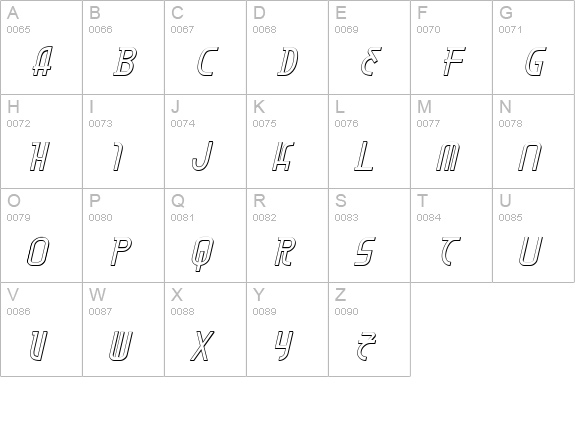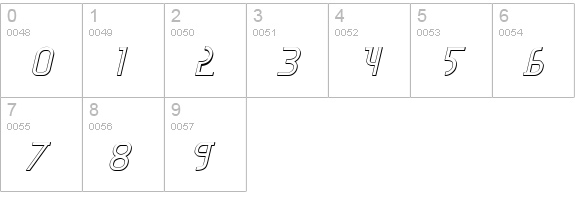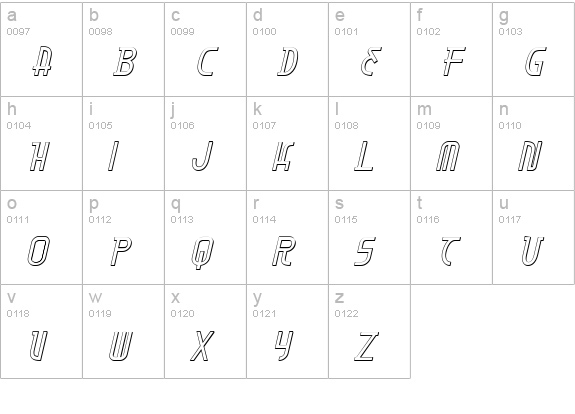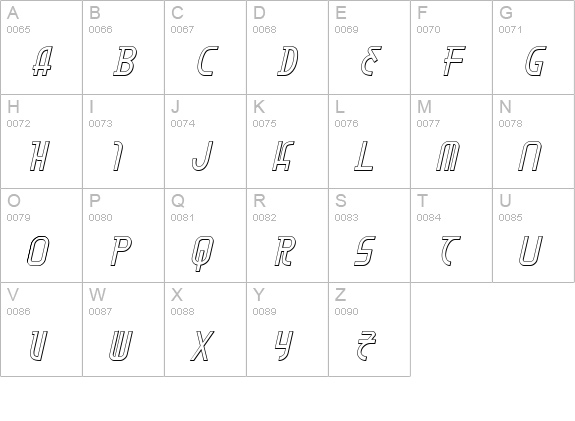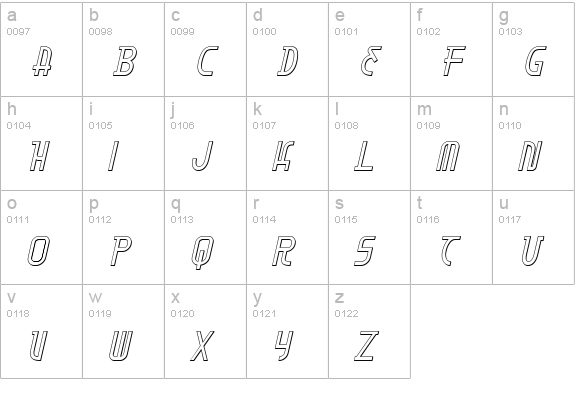
Moon Dart 3D Italic Font Details
Moon Dart 3D Italic is a distinctive, italic variant in the Moon typeface family \xE2\x80\x94 well suited to design and typography projects.
Moon Dart 3D Italic font is a dynamic and eye-catching typeface that adds a modern touch to any design project. Its sleek and futuristic appearance makes it perfect for titles, headers, and branding materials. The 3D effect adds depth and dimension, making text stand out in a captivating way. This unique font is available for free download exclusively at FontsMarket.com. Whether you are working on a digital project, print design, or any other creative endeavor, Moon Dart 3D Italic font is sure to make a lasting impression. Embrace the future of typography with this stylish and versatile typeface that will elevate your designs to new heights.